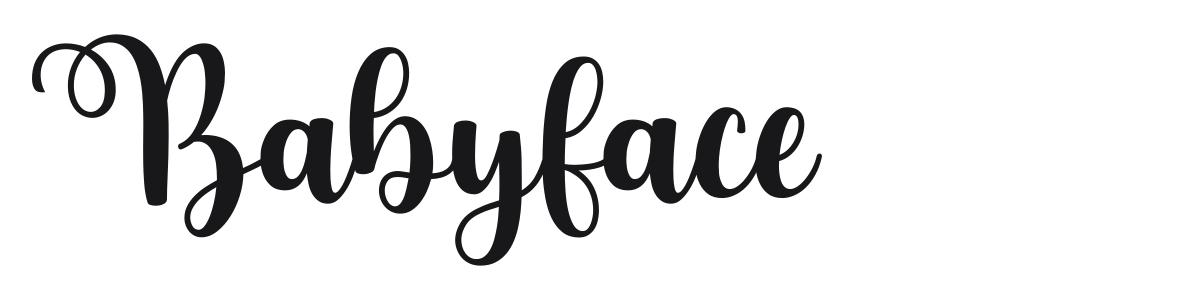
Babyface
Babyface is a bold casual script with a cheerful, bouncy rhythm and smooth connected strokes. The generous loops and curled terminals give it a handcrafted warmth that works well for branding, packaging, and social media graphics. It carries a friendly energy without feeling childish.